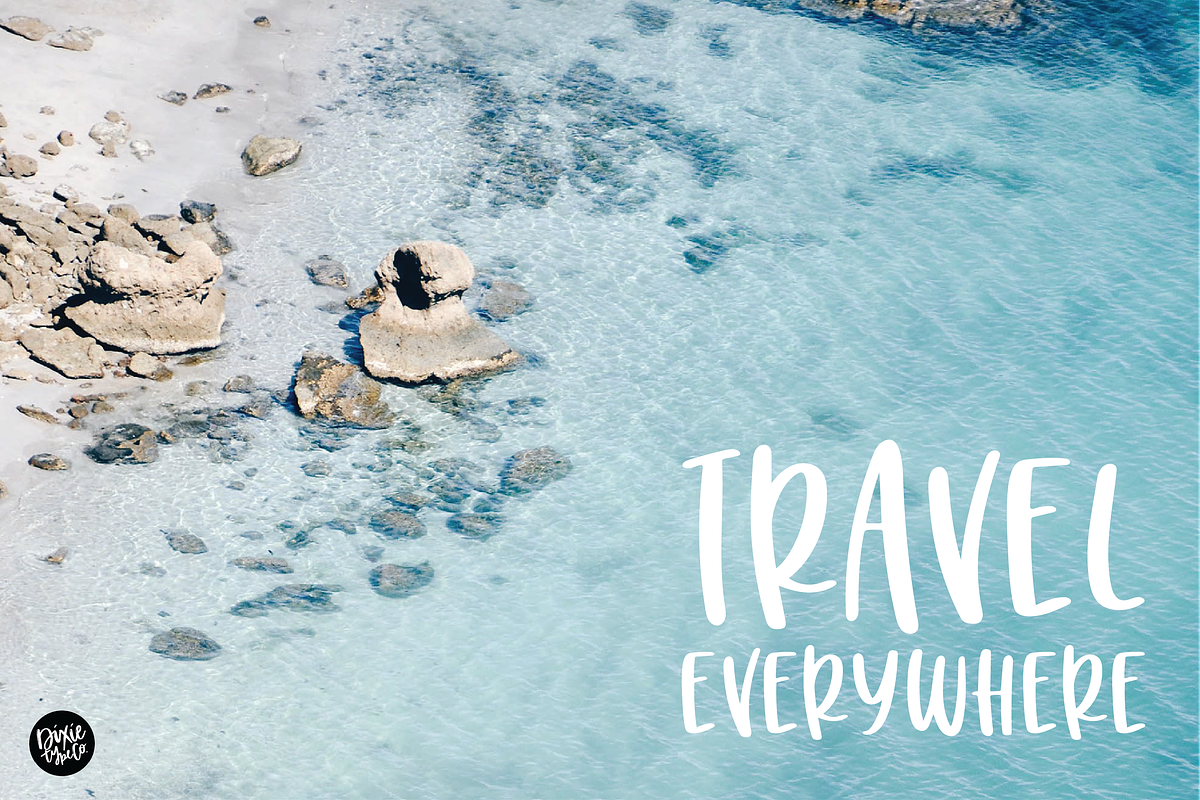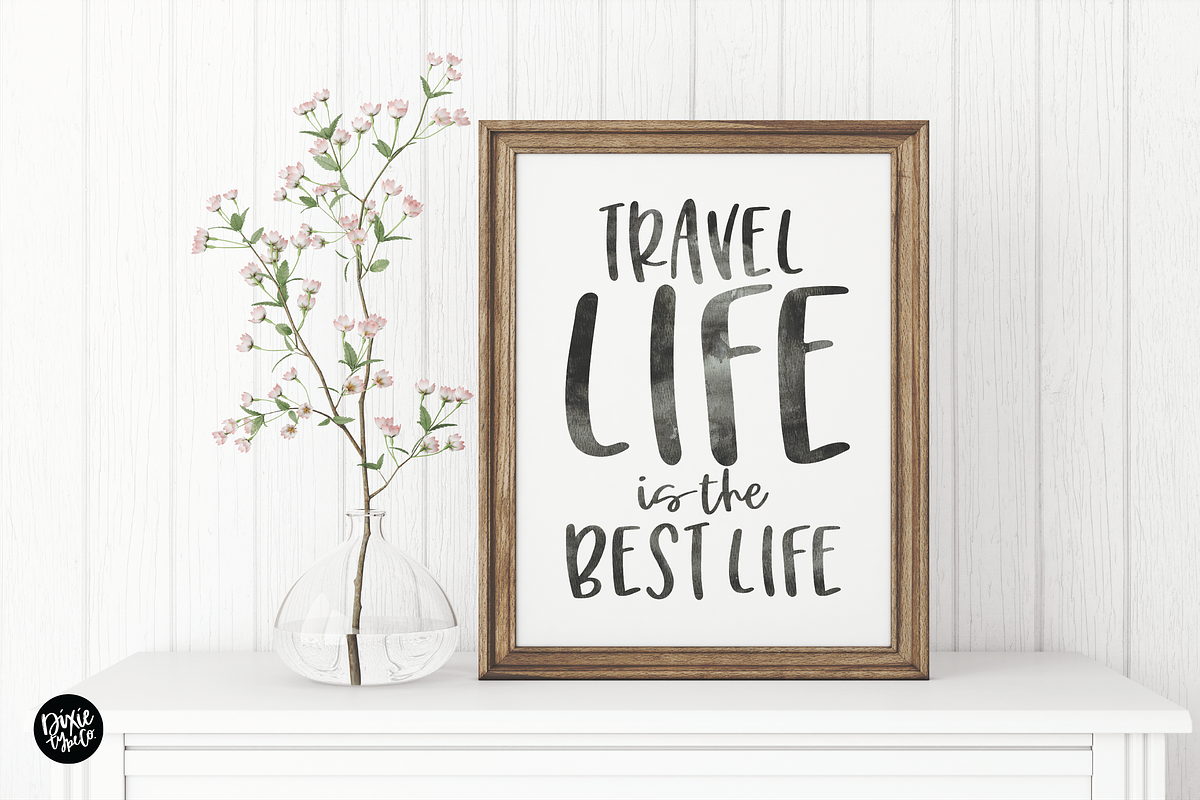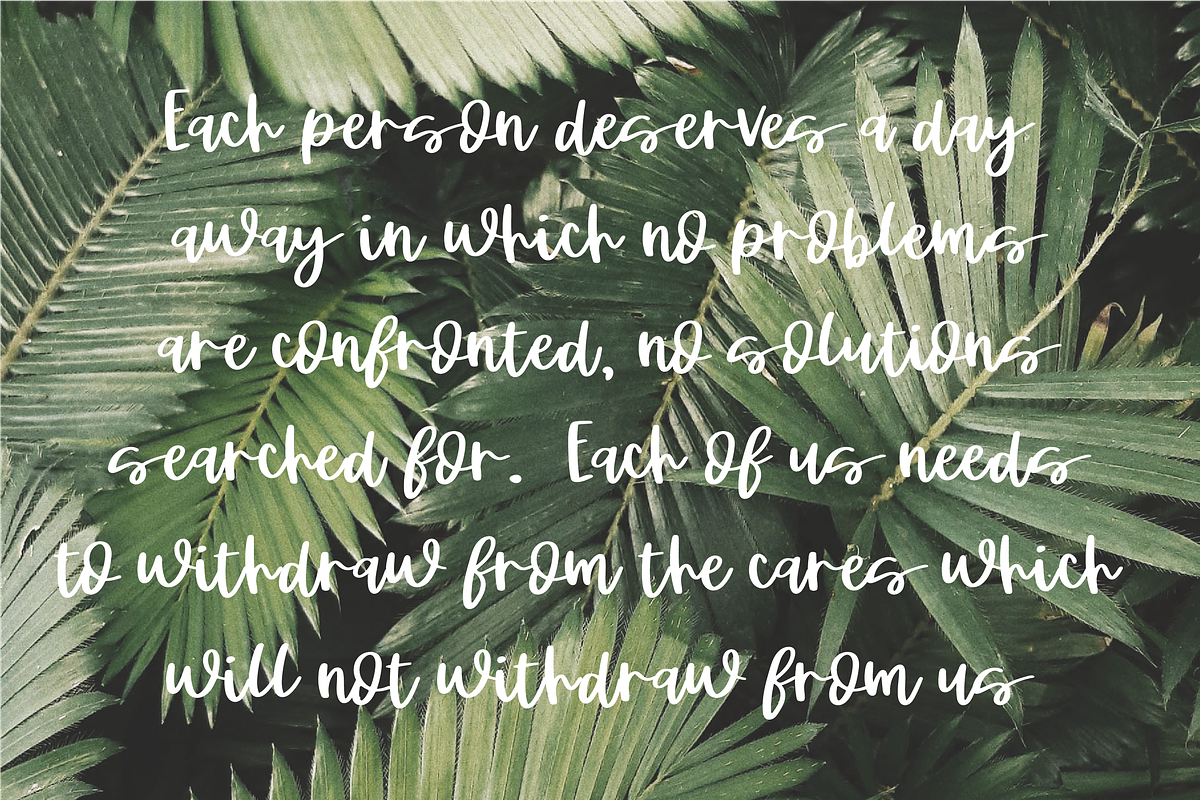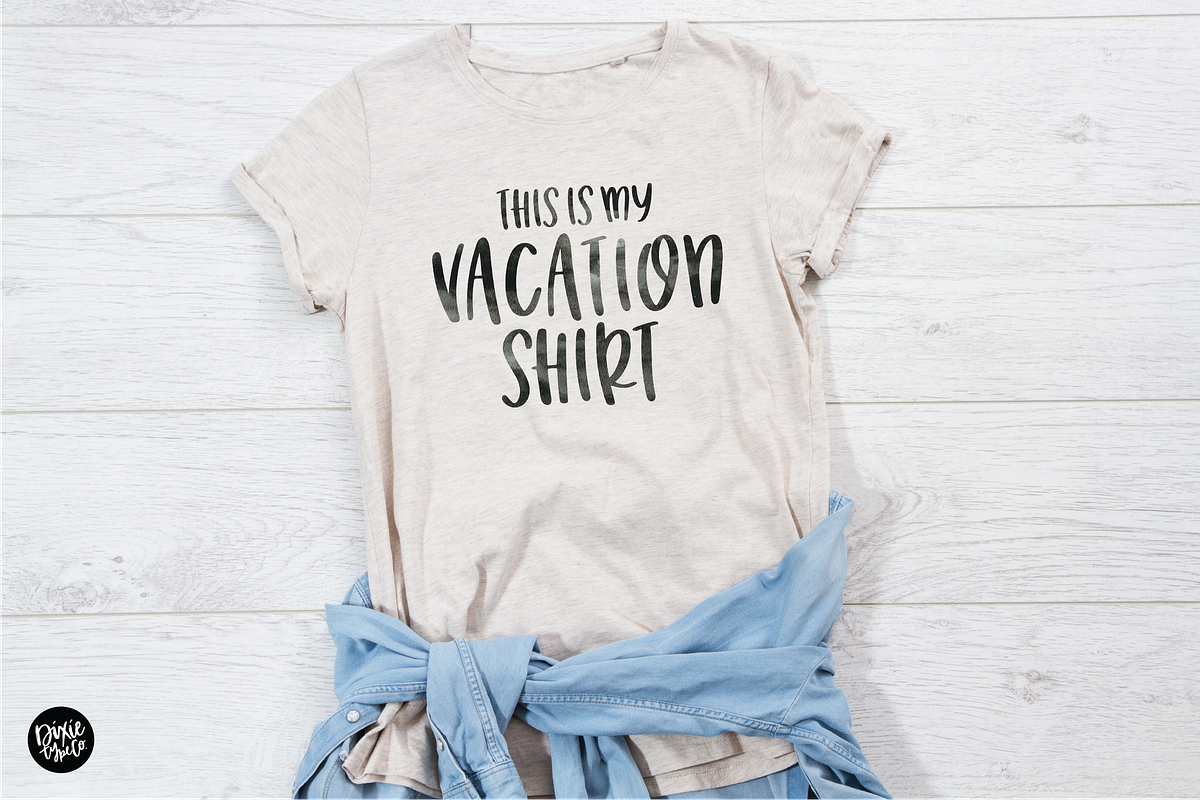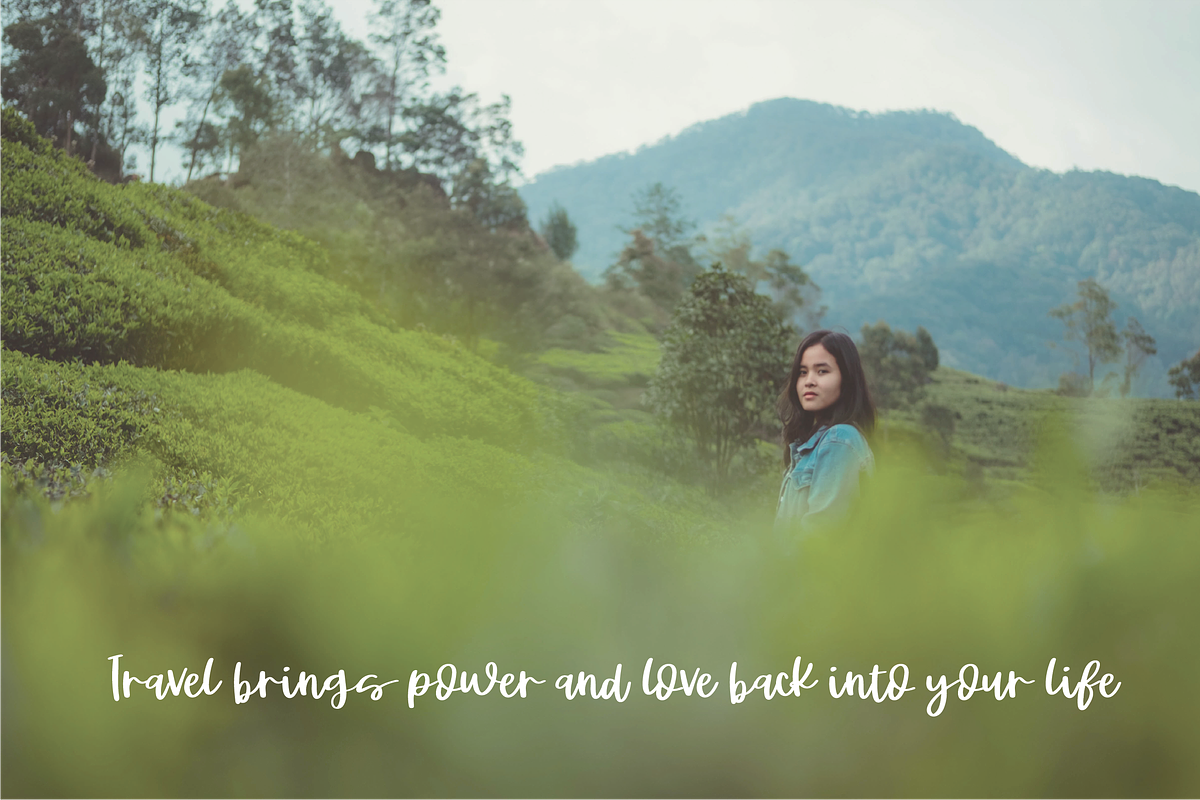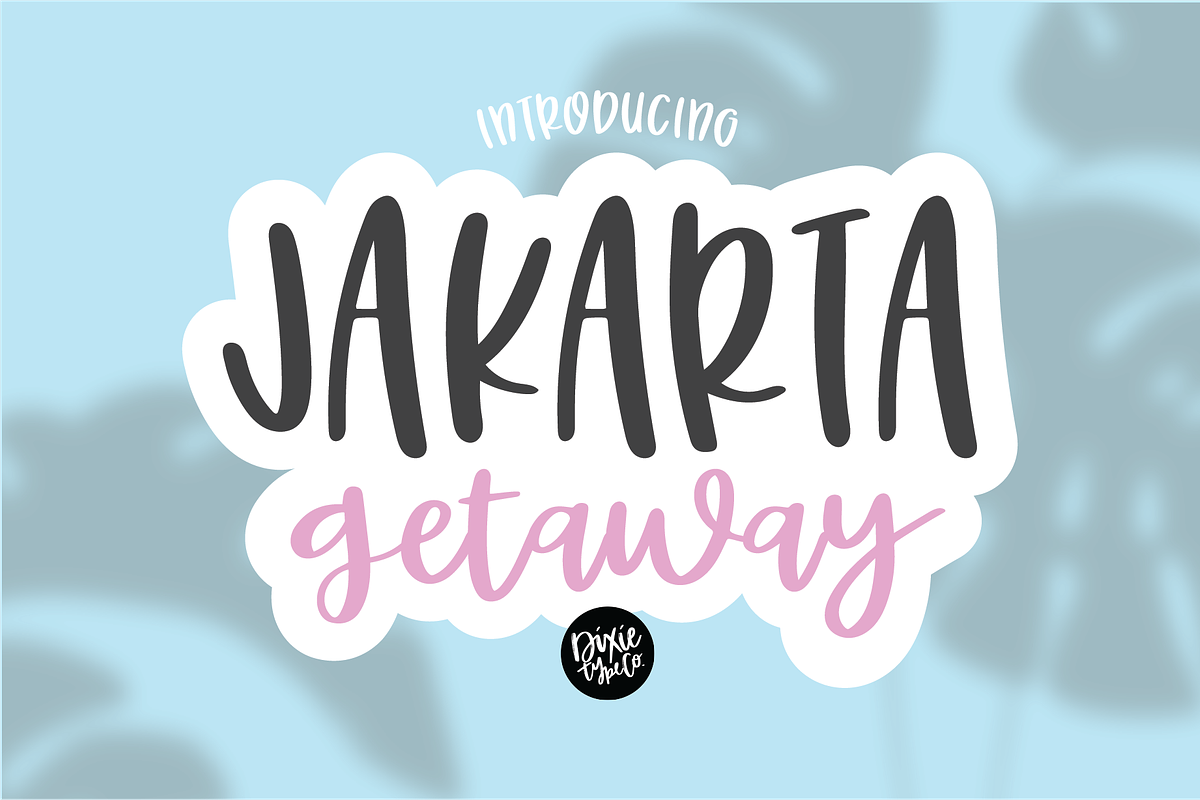
JAKARTA GETAWAY Hand Lettered Font
"Jakarta Getaway" font
{ Typographic font hand-lettered with love by Dixie Type Co. }
This is a fun font with basic uppercase glyphs and script lowercase glyphs. This font includes all letters, and basic punctuation.